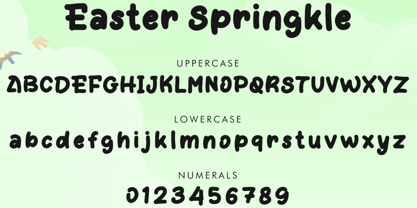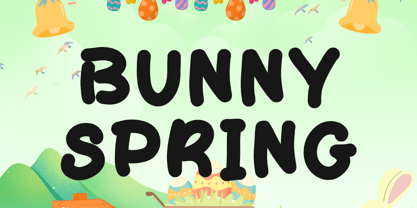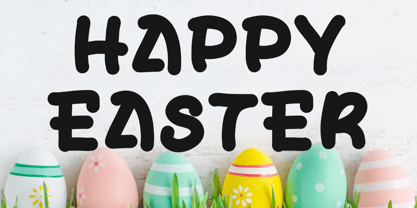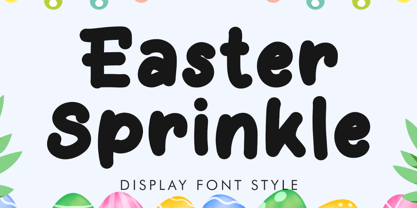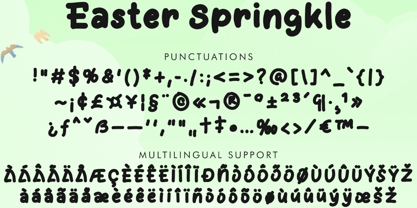
Easter Sprinkle
by Yoga Letter
The Easter Sprinkle Font Family was designed by Isroni Yoga Prasetya and published by Yoga Letter. Easter Sprinkle contains 1 styles. More about this family
"Easter Sprinkle" is a unique and fun display font. It features uppercase and lowercase letters, numerals, punctuations, and multilingual support. It's perfect for spring, Easter, banners, branding, stickers, logos, print, summer, vacations, holidays, Mother's Day, Teacher's Day, invitations, greetings, weddings, Christmas, patriotic font, back to school and more.